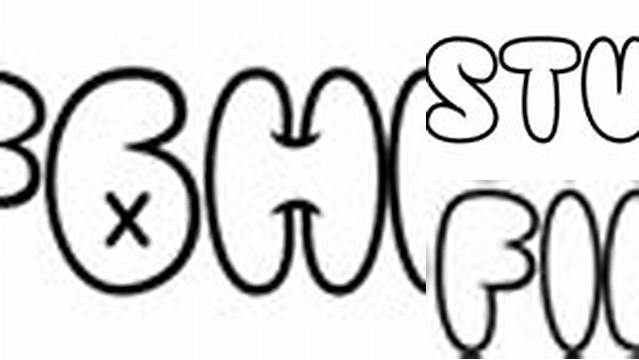
Fillings Urban Outline Font: Free Download & Design Guide
Hey guys! Are you on the hunt for a cool, urban-inspired font that you can snag for free? Well, you've come to the right place! Today, we're diving headfirst into the Fillings Urban Outline Font, a fantastic choice for all sorts of design projects. We'll cover everything from where to download it, how to use it, and some awesome design ideas to get your creative juices flowing. So, buckle up and let's get started!
What is the Fillings Urban Outline Font?
Alright, let's get the basics down first. The Fillings Urban Outline Font is a modern, stylish typeface with an edgy, urban vibe. The defining characteristic of this font is its outline style, which gives it a unique and eye-catching appearance. It's perfect for projects that aim to capture the energy and aesthetic of city life, graffiti art, or anything with a contemporary, bold feel. Think of it as the perfect digital brushstroke for adding that extra oomph to your designs. Its clean lines and open spaces make it incredibly versatile, allowing it to be used in a variety of applications. You'll find it's great for headlines, logos, posters, social media graphics, and even some body text, depending on the context and design goals. The beauty of this font also lies in its ability to stand out while remaining highly legible. It has a way of grabbing attention without being overly complicated or fussy. You can easily find various versions and weights. Some might include different characters. These variations are often included in the free download and are easy to install and ready to use with any design software. This can give you a lot of control over how you express your message, whether you want something that feels more delicate and subtle or something that's super strong and in-your-face. The font is created by a talented designer, and the free download is typically available for personal and sometimes even commercial use, which is a total win-win. Make sure you check the specific licensing terms when you download, so you know how you can use it in your projects. It’s all about making sure that you respect the creator's wishes and avoid any copyright issues. If you are a fan of other urban and modern typefaces, this font family is one to add to your collection. This font is a great tool for adding a touch of urban flair to any project. With its outline style and versatility, it is perfect for creating eye-catching designs. Whether you're a graphic designer, a social media enthusiast, or just someone who loves cool fonts, the Fillings Urban Outline Font is a must-have. So, why wait? Get the free download and start creating some awesome designs today!
Design Ideas and Inspiration for the Fillings Urban Outline Font
Ready to get inspired? Let's brainstorm some cool design ideas where the Fillings Urban Outline Font can truly shine! This font is incredibly versatile, so the possibilities are pretty much endless. Think about using it for eye-catching posters. Imagine creating posters for music events, art exhibitions, or even community gatherings. The outline style of the font immediately grabs attention, making your message stand out. Also, use it to create stunning logos and brand identities. The font's bold, modern look is perfect for companies looking to project a strong, urban image. You can create logos for fashion brands, tech startups, or any business wanting a contemporary edge. Then there's social media graphics. Use this font to create engaging posts, stories, and profile pictures for platforms like Instagram, Facebook, and Twitter. You can pair it with stunning images and bold colors for a visually appealing feed. The font is also perfect for website headers and banners. The font's clean and stylish look is also perfect for website headers and banners. The font makes sure your site looks modern and professional, attracting visitors from the start. How about using it in t-shirt designs? Create unique t-shirt designs with catchy slogans or graphic elements. You can sell your designs online or print them for personal use. Finally, use it to create invitations and greeting cards. Design unique invitations and greeting cards for parties, weddings, or special events. Make your invitations memorable with a personalized touch. When using the font, here are some additional ideas: Experiment with different colors and backgrounds. Combine the font with other design elements such as illustrations, photos, or patterns to create a unique design. Create a theme or style for your design based on the message you want to convey, for example, a retro or minimalist style. Make sure your design is optimized for the intended platform and audience to guarantee the best impact. With the Fillings Urban Outline Font, you can craft designs that are truly unique. So, whether you’re designing for personal projects or for a client, this font is sure to add a touch of urban flair. Let your imagination run wild. Get ready to create some amazing designs with the Fillings Urban Outline Font!